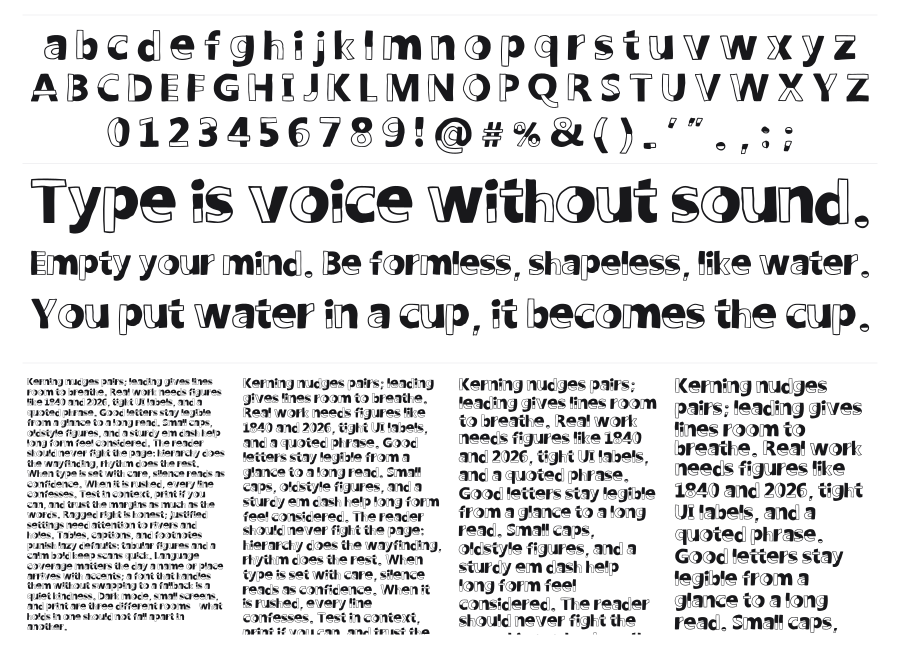
Woodcutter Delicada
Woodcutter Delicada is a chunky, playful display face from Woodcutter with bold letterforms featuring mixed fill patterns that give each character its own quirky texture. The result feels handcrafted and a little unpredictable, like lettering pulled from a DIY zine or hand-painted shop sign. Built for headlines and posters where you want something loud, fun, and visually busy without worrying about consistency.